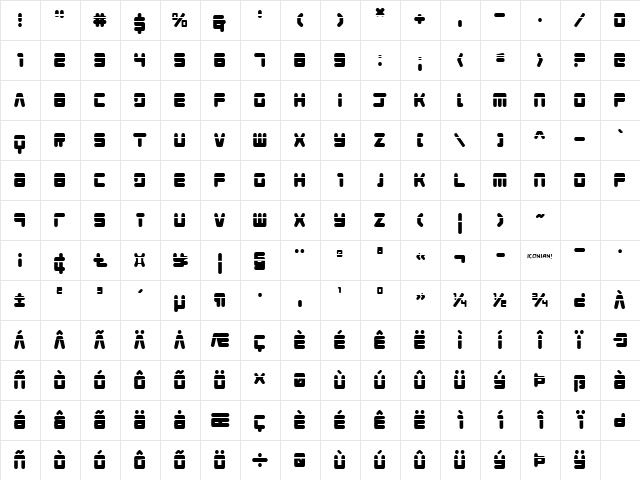
Young Techs Laser Regular
Design Context for Young Techs Laser
Young Techs Laser has a distinctly futuristic character, with geometric precision and clean angles that feel at home in technology, gaming, and sci-fi contexts.